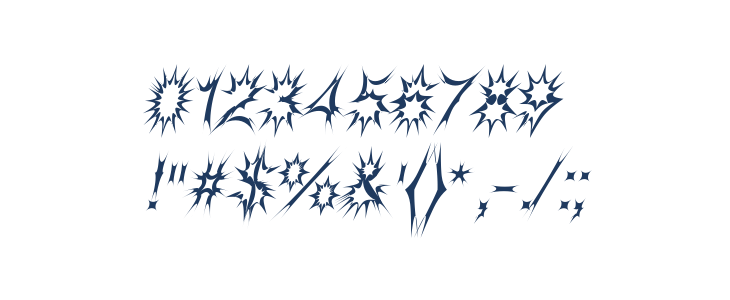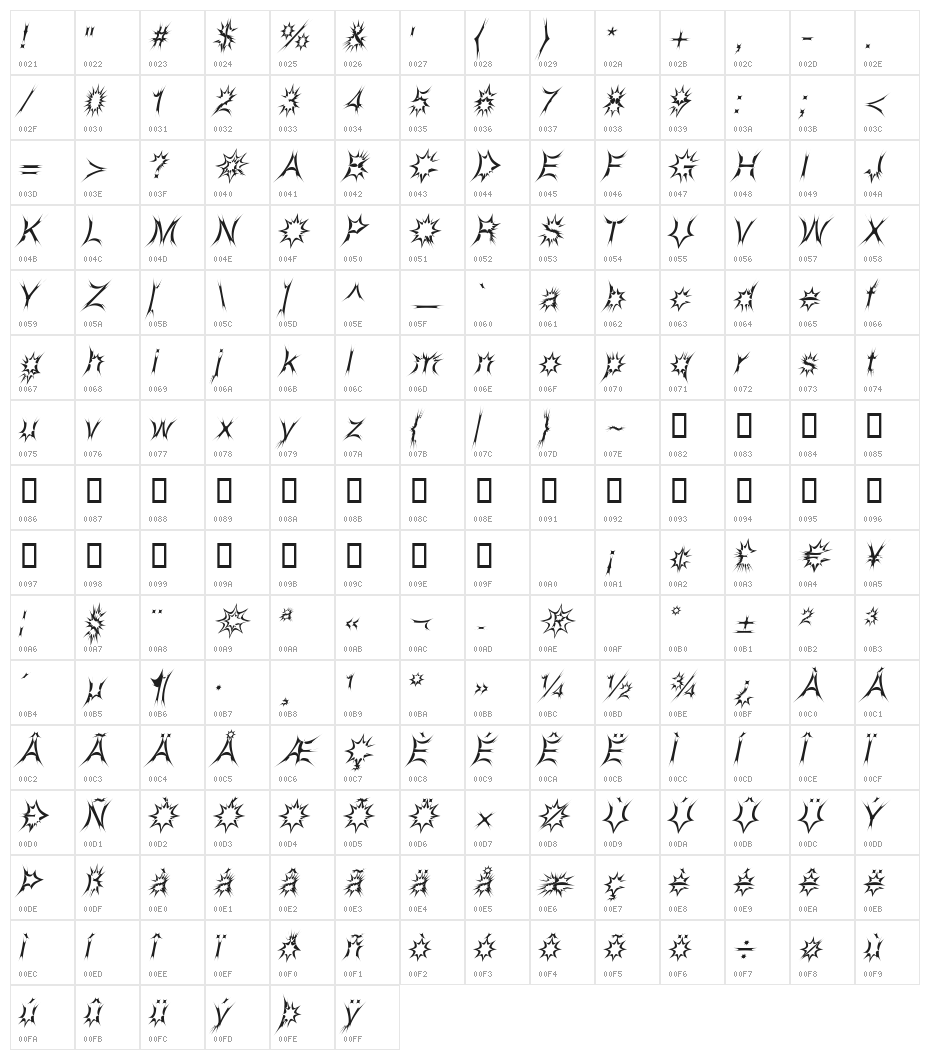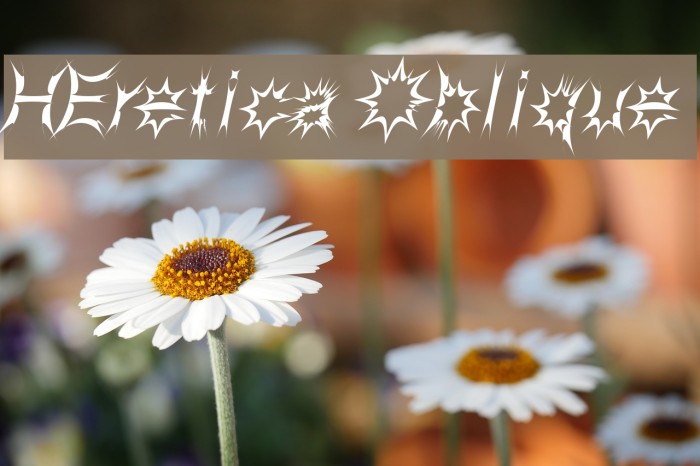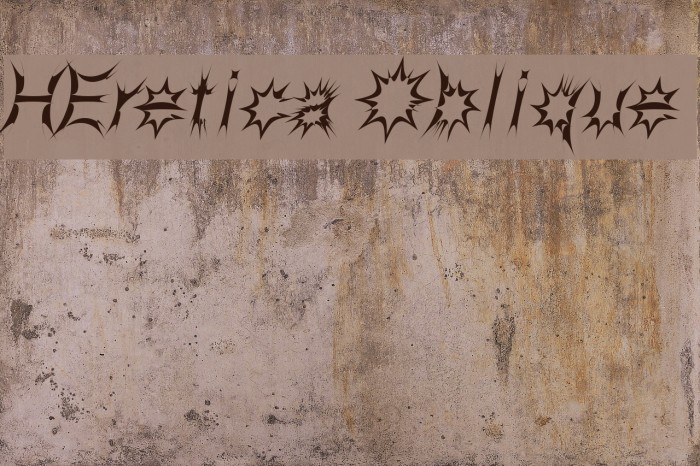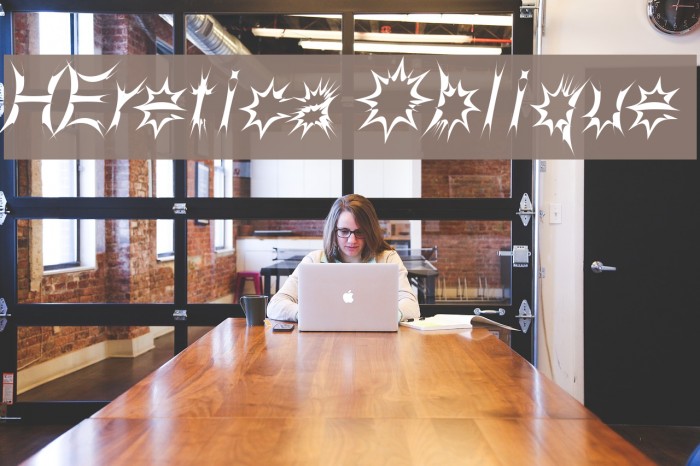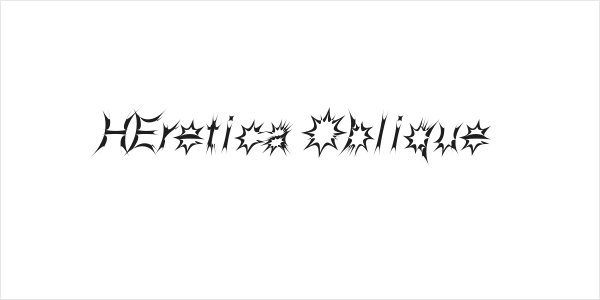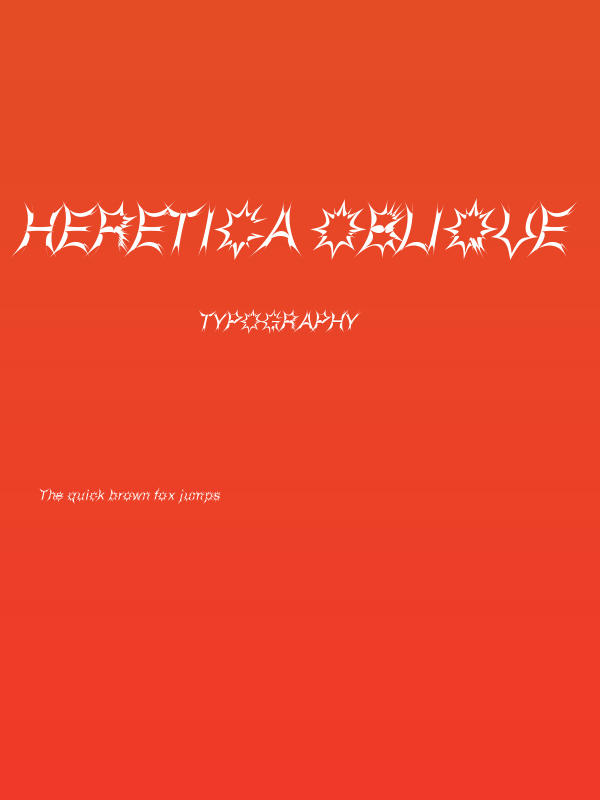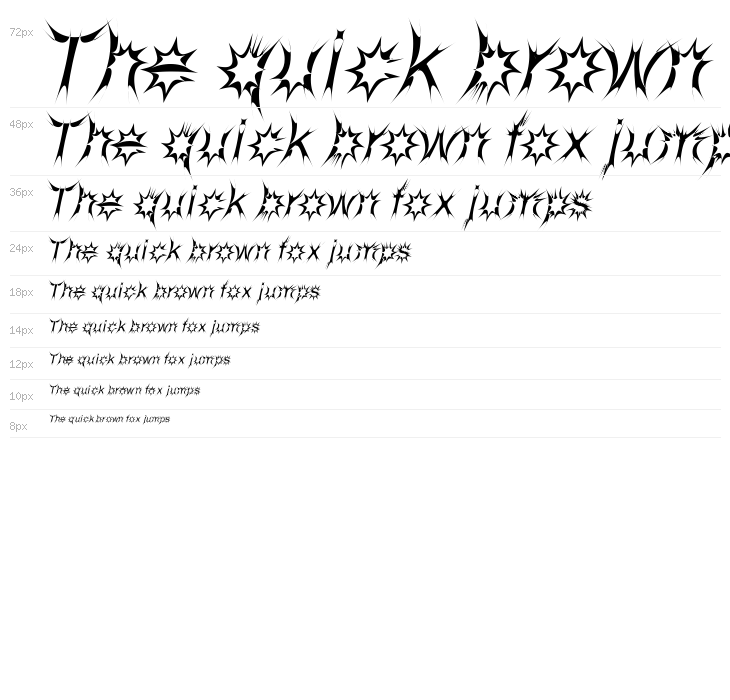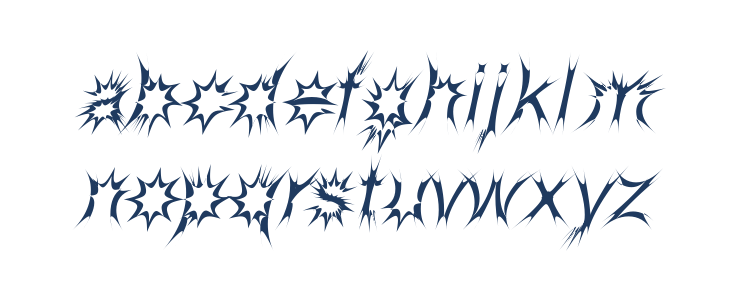
HEretica Oblique Font
HEretica Oblique Description
This font features an aggressive and edgy design, characterized by sharp, jagged edges and a spiky appearance. The letters are bold and dynamic, with a sense of movement and energy. Each character seems to explode outward, creating a chaotic yet controlled aesthetic. The font's unique style makes it stand out, with high contrast between thick and thin strokes, adding to its dramatic impact. It's a decorative typeface that commands attention and conveys a sense of rebellion and nonconformity.
| Overall Style | Modern, Edgy |
| Proposed Projects | Ideal for album covers, posters, and branding for edgy or alternative products. |